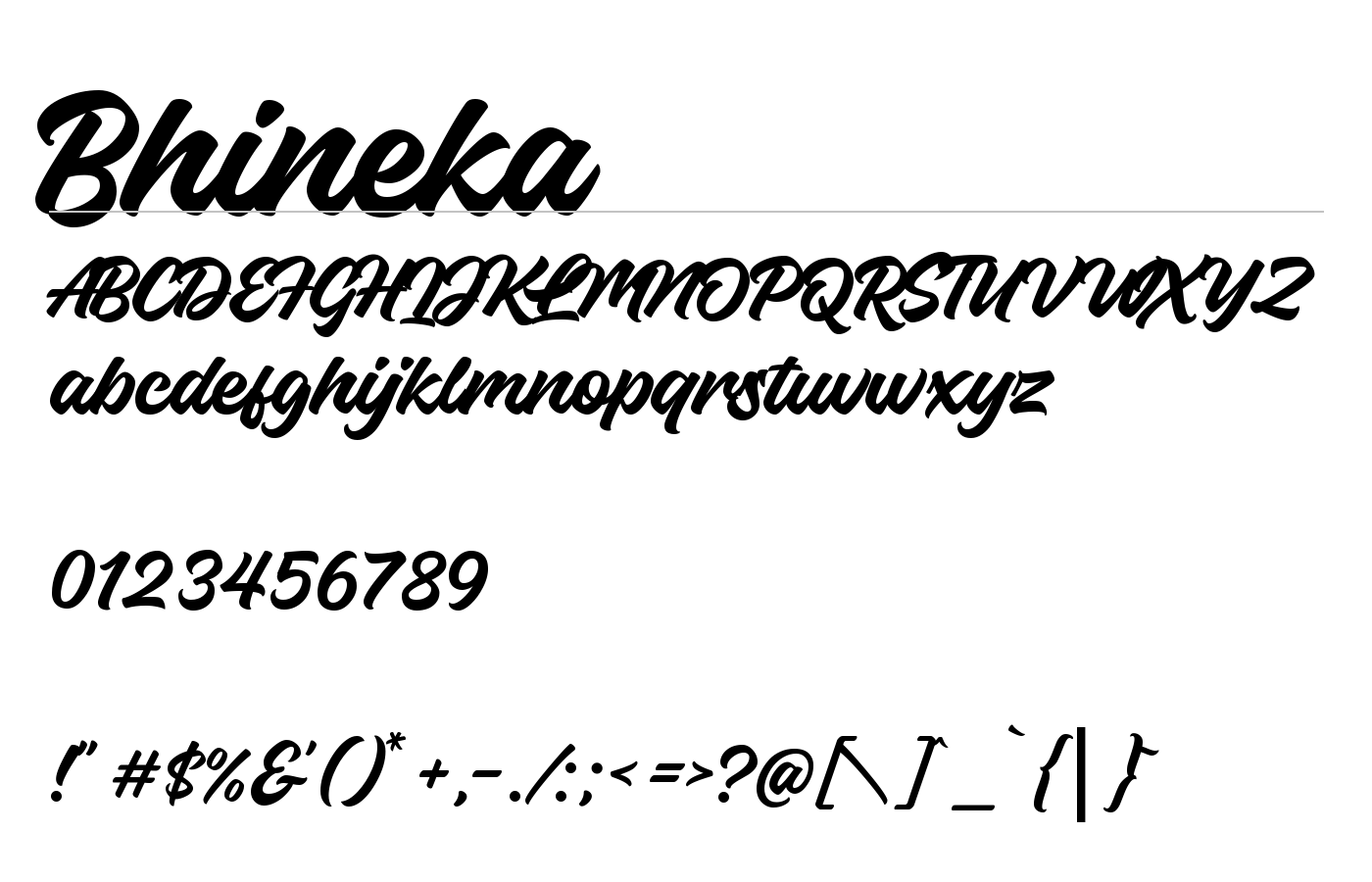
Bhineka is a bold, script-style font featuring smooth, thick strokes with a strong handwritten feel. Its slightly condensed letterforms and connected characters bring an energetic and approachable personality, making it ideal for branding, invitations, and headlines where a friendly yet confident touch is needed. This font works well in creative projects that want to convey warmth and style without sacrificing readability.
Bhineka Font
About Bhineka Font
| Font family | Bhineka Font |
| Designer | Salman Mashudi |